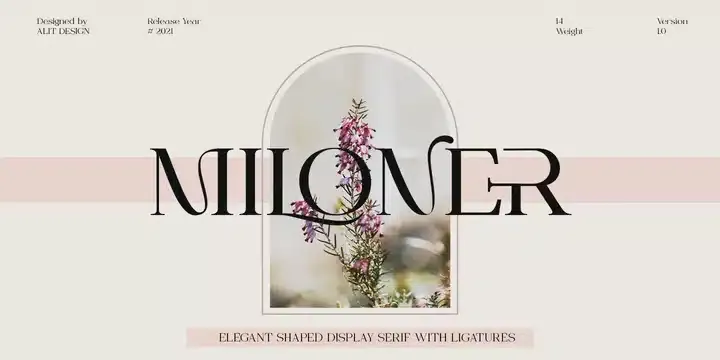
Miloner Premium Font by Alit Design
Miloner Premium Font by Alit Design consists of 14 families from thin to heavy style. The elegant modern font creates a unique design and is sure to attract the attention of the design’s target audience. Apart from being unique, Miloner Premium Font by Alit Design also has a simple and luxurious character that makes the design charming and luxurious.
These fonts are perfect for designs with the concept of elegance, luxury, romance, fashion, etc.
Miloner Premium Font by Alit Design
Miloner Premium Font by Alit Design consists of 14 families from thin to heavy style. The elegant modern font creates a unique design and is sure to attract the attention of the design’s target audience. Apart from being unique, Miloner Premium Font by Alit Design also has a simple and luxurious character that makes the design charming and luxurious.
These fonts are perfect for designs with the concept of elegance, luxury, romance, fashion, etc.